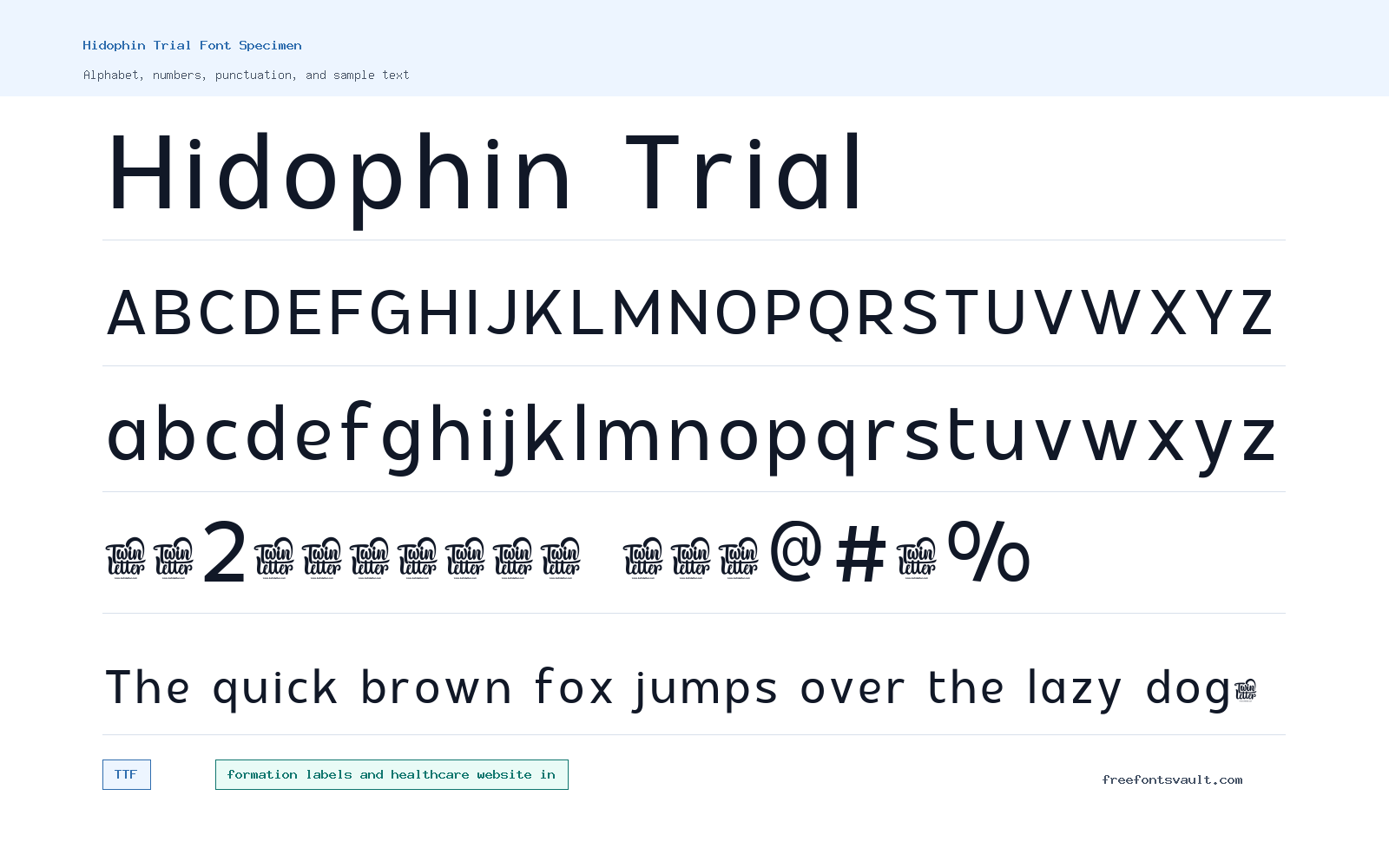
Hidophin Trial
- Designer Danial
- Foundry twinletter
Hidophin Trial font.
Hidophin Trial is a demo version of the Hidophin type family from Twinletter. It is best treated as a personal-use test font for previewing the style before choosing the proper license for finished work.
Hidophin Trial has a clean sans-serif look with rounded, friendly shapes. The regular weight feels approachable without being overly decorative, which makes it easy to test in headings, short labels, app screens, packaging mockups, and simple display text. Because the files here are trial/demo files, the most useful way to judge the font is to type your own words into the preview and check spacing, capitals, numerals, and punctuation at the size you plan to use.
For personal mockups, Hidophin Trial is useful when you want a calm sans-serif with a warmer tone than a strict geometric font. It can suit pharmacy concepts, wellness labels, service pages, onboarding screens, and soft editorial headings. Check the trial characters carefully before committing, because demo files may not include every glyph needed for multilingual copy or production artwork.
- Rounded sans-serif letterforms suited to short, clear text tests
- Useful for checking headings, labels, numerals, and interface-style samples
- Personal font testing and layout mockups
- Short headings, labels, and title text
- Healthcare, pharmacy, wellness, or product concept previews
The local font data names Danial as the designer and Twinletter as the foundry. Twinletter is also named in the source listings for the full Hidophin family.
What is Hidophin Trial best for?
It is best for personal previews, mockups, and testing short text such as headings, labels, and interface-style samples.
Who made Hidophin Trial?
The font data names Danial as the designer and Twinletter as the foundry.